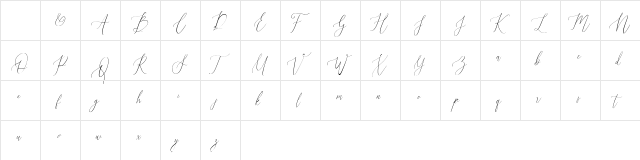
Complete Audrey and Reynold Regular glyph index. Displaying only characters natively supported by Audrey and Reynold Regular font.
Audrey and Reynold is a composed and adaptable typeface that performs quietly and consistently across a wide range of design contexts.